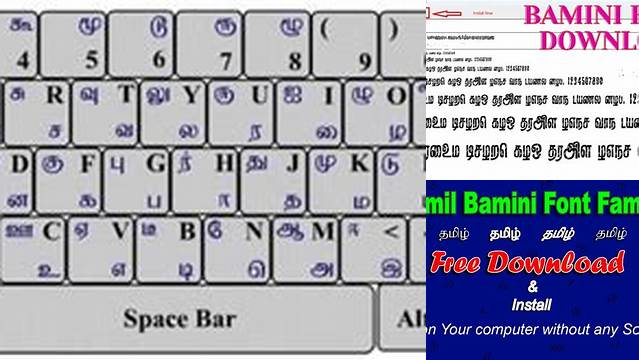
Bamini Bold Font Free Download: Your Ultimate Guide
Hey guys, are you on the hunt for a super cool Tamil font? Look no further because we're diving headfirst into the world of Bamini Bold font! This font is a popular choice, especially in Tamil Nadu, and it's used everywhere – from newspapers to websites, and even in your everyday documents. In this article, we'll cover everything you need to know about the Bamini Bold font free download, its features, how to install it, and why it’s such a go-to font. Get ready to amp up your Tamil text with this awesome font!
What is Bamini Bold Font?
So, what exactly is Bamini Bold font? Well, it's a variation of the original Bamini font, but with a bolder, more pronounced style. Think of it as the muscle-bound version of its regular counterpart! This font is specifically designed for the Tamil language, making it ideal for all sorts of projects. It's created to be highly readable, which is super important when you’re crafting content. It ensures that your message is clear and easy for everyone to understand. The bold style also helps to make the text stand out, perfect for headlines, titles, and anything you want to grab attention. This means you can easily highlight key information. This makes your text look more professional and visually appealing. Bamini Bold font strikes a perfect balance between style and legibility, which is why it's a favorite among designers, writers, and anyone working with Tamil text. Furthermore, it supports a wide range of Tamil characters, ensuring compatibility with almost all Tamil text needs. The font's design is also optimized for both print and digital media. This makes it a versatile choice for a variety of applications. In short, Bamini Bold is your go-to font for making a bold statement in Tamil! You will love this font because it is easy to read and works well on both screens and in print. The font's design is clear and not overly complicated. This simple design helps ensure your text is easy to understand. The strong, clear lines of the font make sure that the text really pops out. It's a great choice if you want to highlight important details or make your text look more engaging. Moreover, Bamini Bold font is compatible with a wide variety of software and systems. This compatibility makes it a great choice for all users. Whether you’re a professional designer or just someone who likes to write in Tamil, this font will be a valuable addition to your toolkit. It works well in a lot of applications. It is easy to use, so you can quickly make your text look the way you want. This font is designed to make your text look good, no matter where it is used. Also, it's great for headings because it immediately grabs attention and sets the tone for the rest of the text. This is super important if you want your content to be well-received and effective. In addition, the bolder style doesn't sacrifice the font's readability. This balance ensures that your message gets across clearly, making your Tamil text stand out from the crowd! Finally, the consistent design of Bamini Bold font means you can create content that looks polished and professional. Using this font adds a touch of elegance to your work, and the consistency ensures a seamless reading experience. It’s not just a font; it's a tool that helps you communicate more effectively in Tamil. Remember that it is perfect for titles, subtitles, and any text that needs to make a strong impression. The bold style adds emphasis, making your message more impactful. It’s a great way to engage your audience. So if you want your Tamil text to really shine, this is the font for you!
Features and Benefits of Using Bamini Bold Font
Why should you choose Bamini Bold font? Let's explore the features and benefits that make it a great choice for Tamil text.
- Readability: One of the biggest advantages of Bamini Bold font is its excellent readability. The bold style ensures that the text is easy to read, even at smaller sizes. This is particularly useful for long-form content or documents with a lot of text. Clear readability enhances user experience and ensures your message gets across effectively.